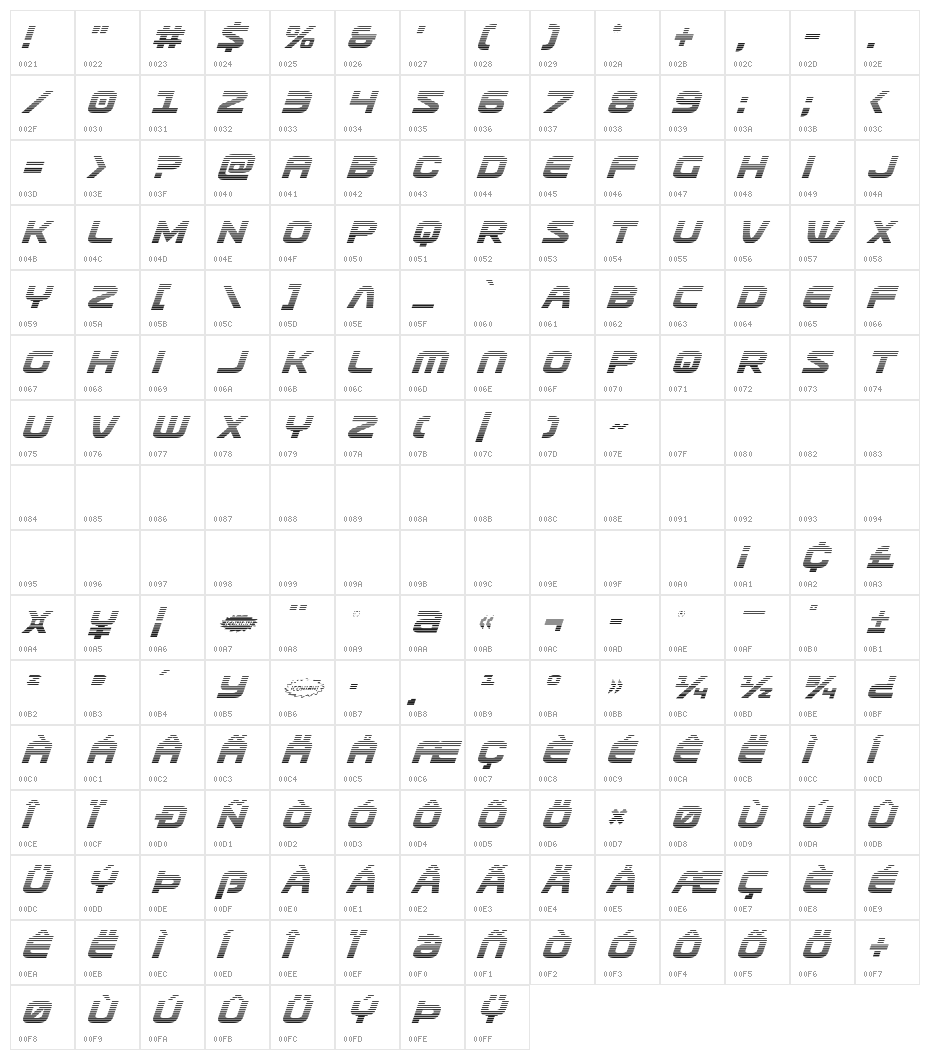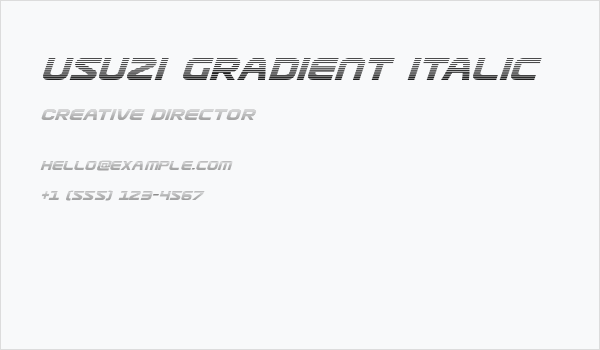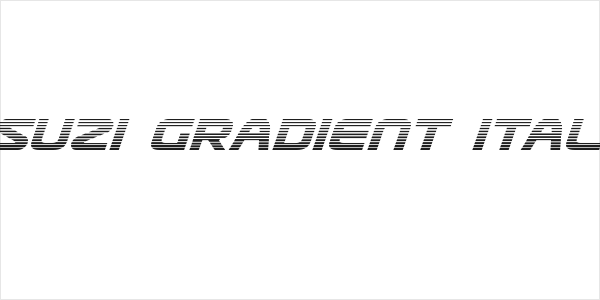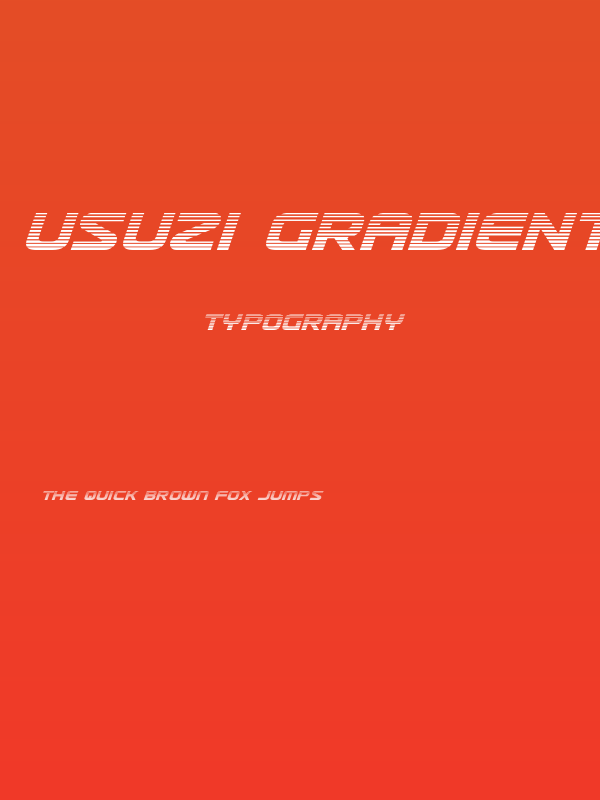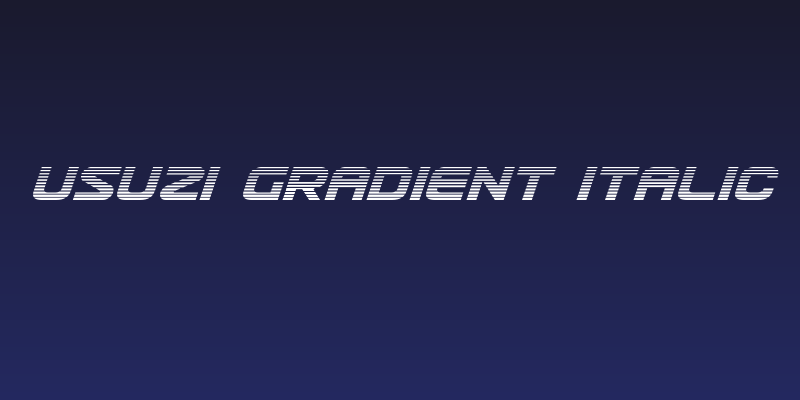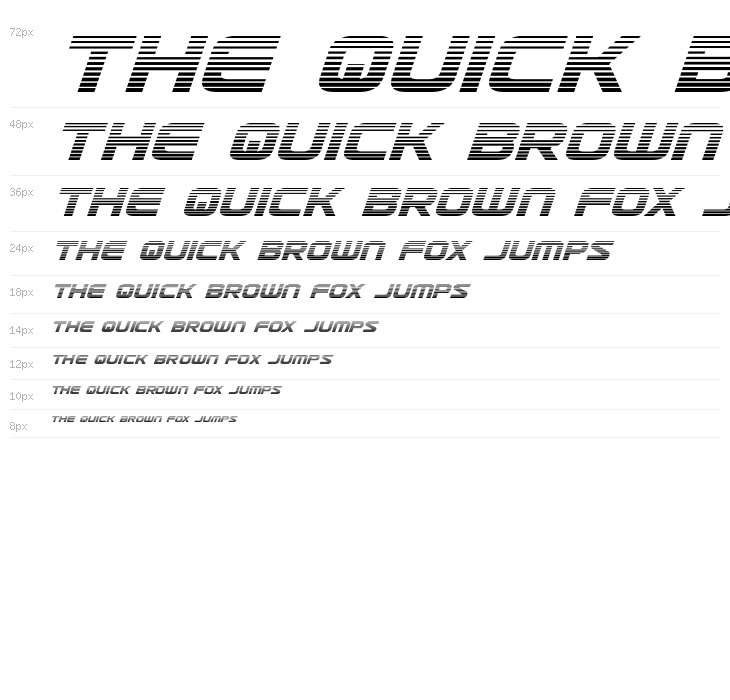
Usuzi Gradient Italic Font
Usuzi Gradient Italic Description
This font features a unique gradient effect with horizontal lines running through each character, creating a dynamic and modern appearance. The italicized style adds a sense of motion and speed, making it ideal for futuristic or tech-oriented designs. The uppercase and lowercase letters maintain a consistent slant, enhancing the cohesive look. The numerals and special characters are designed with the same gradient pattern, ensuring uniformity across all glyphs. The overall aesthetic is bold and eye-catching, perfect for making a statement.